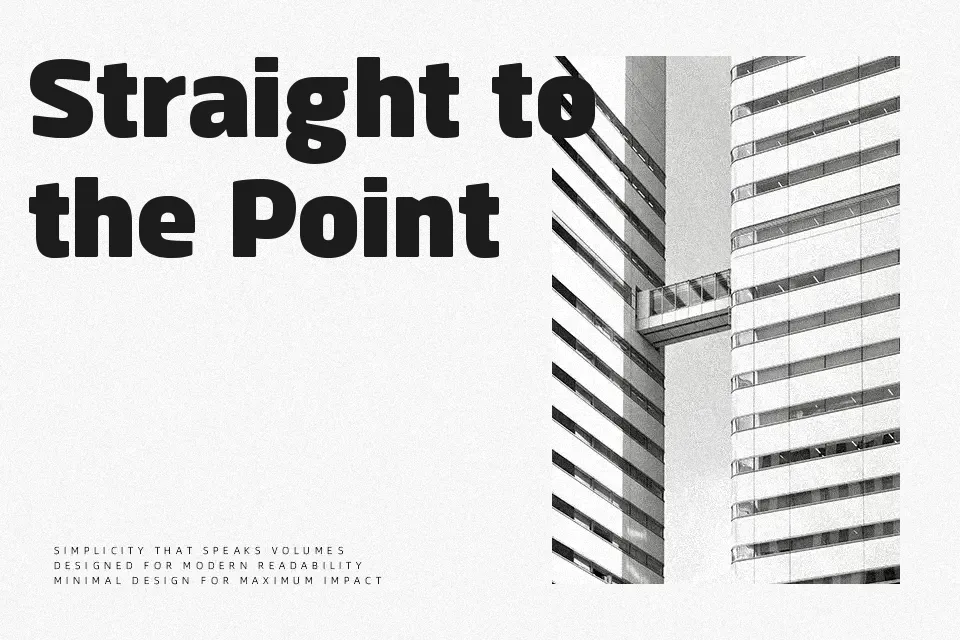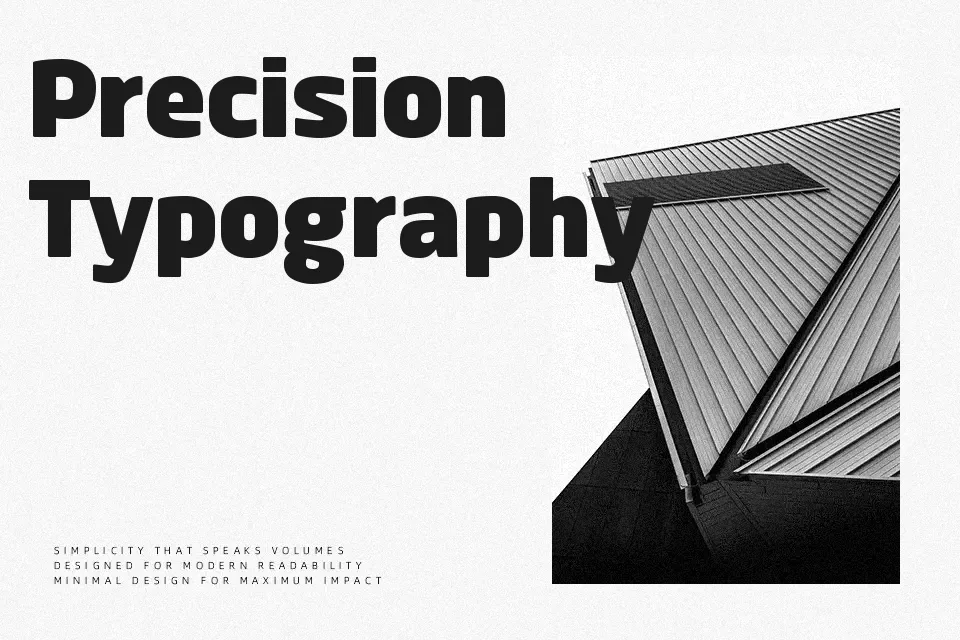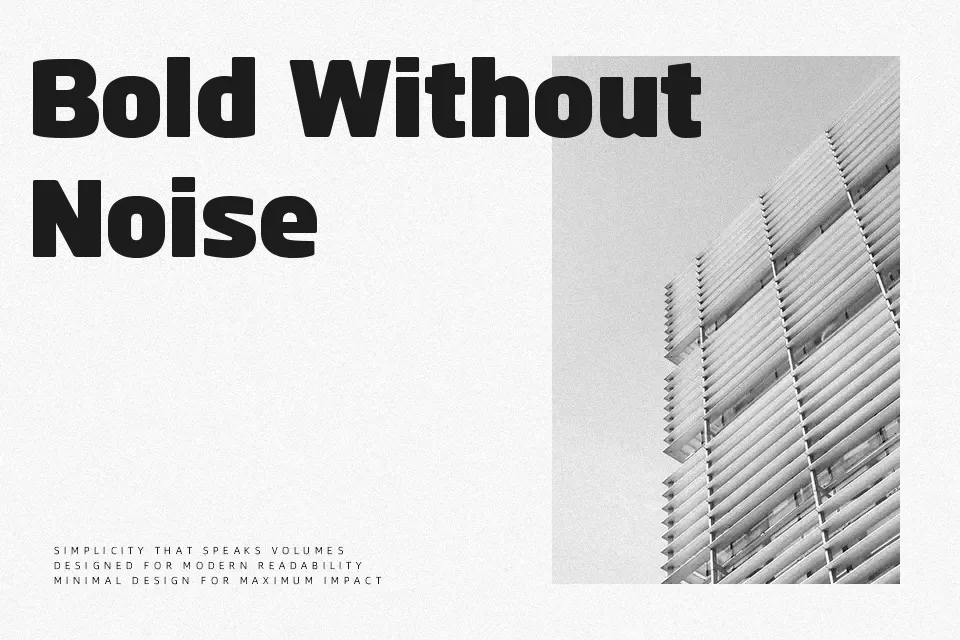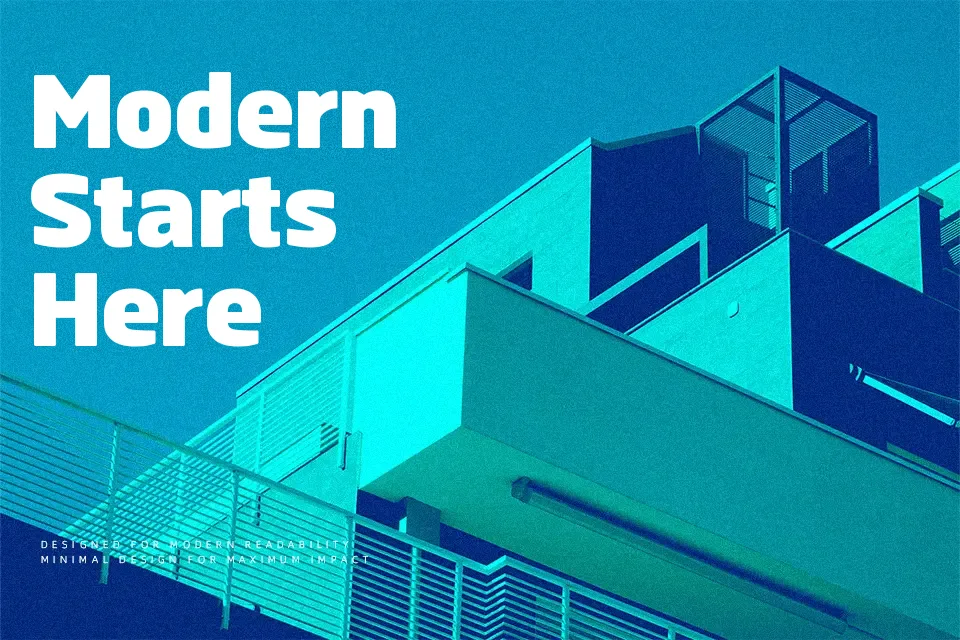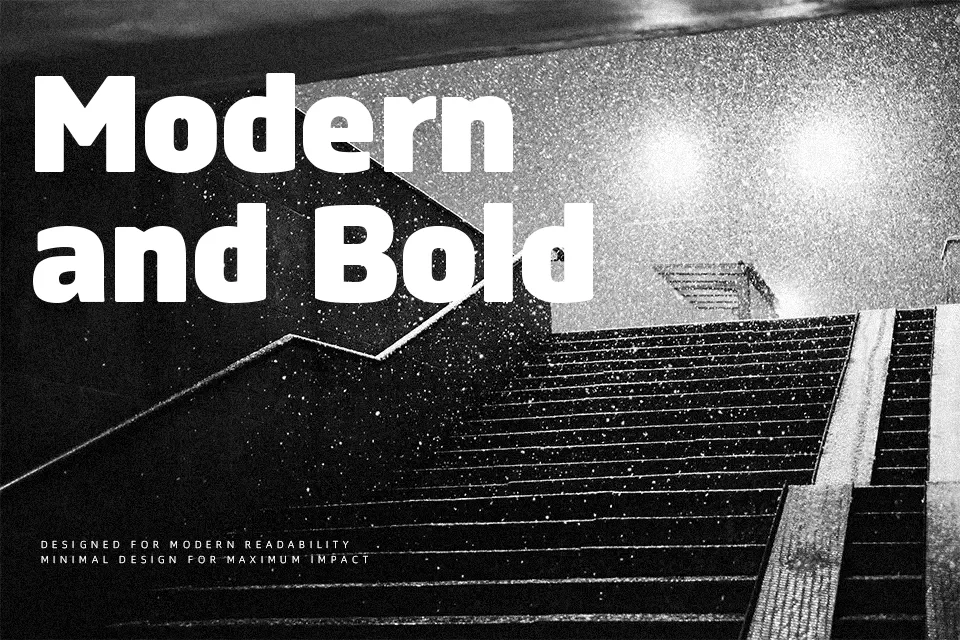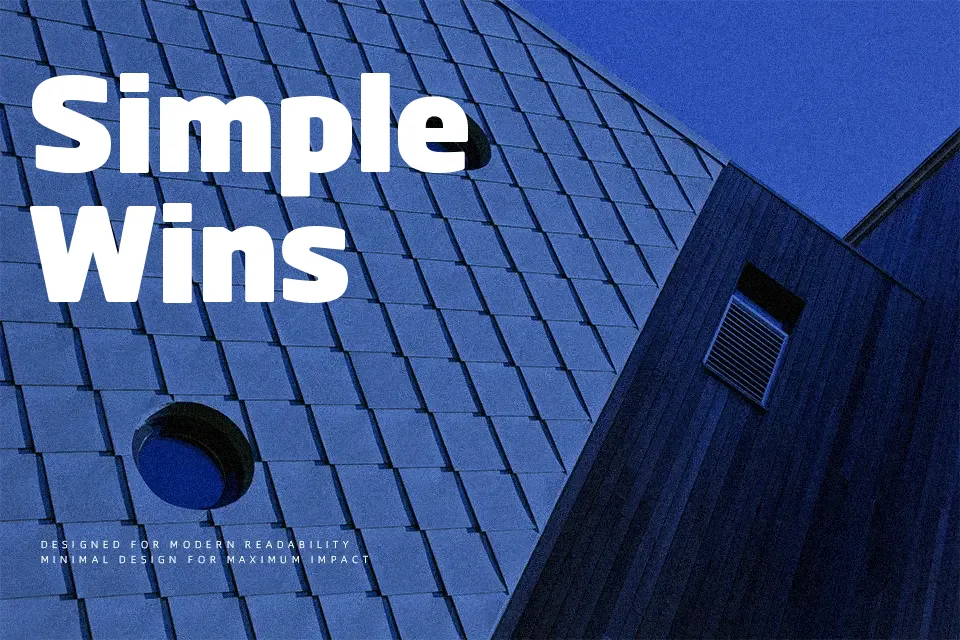
Brandan Font
Designed by Andfonts
Brandan is a contemporary bold sans-serif typeface defined by its remarkably clean strokes, efficient proportions, and straightforward letterforms. The typeface delivers a distinctly minimalist yet striking impression, bridging the gap between professional rigor and modern styling. It genuinely excels when applied to structural branding tasks, such as designing circular logos or commanding editorial headlines where filling space organically matters. The balanced visual weight ensures solid legibility in larger display formats. However, because of its distinct boldness and tighter spatial characteristics, Brandan struggles as long-form body text in lengthy editorial spreads, where a standard reading font would offer better comfort. Compared to everyday grotesques, it brings a uniquely stylized edge to minimalist compositions.
Designing circular badges and emblem logos
Striking editorial headlines in magazines
Contemporary minimalist product packaging
High-contrast digital branding elements
Lengthy body copy in printed books
Traditional or vintage-themed designs
Highly decorative wedding invitations